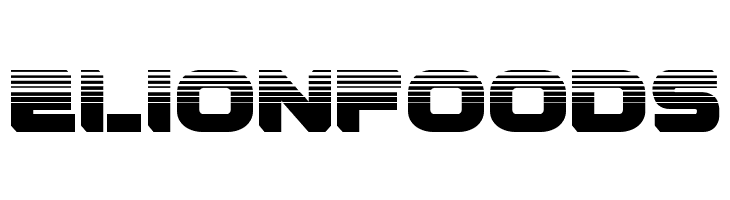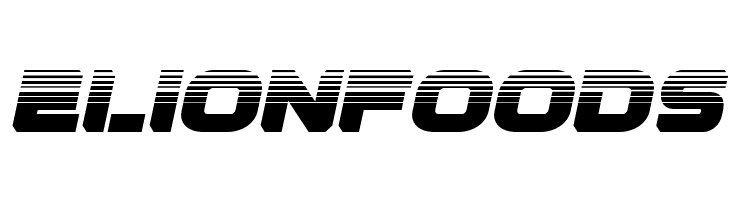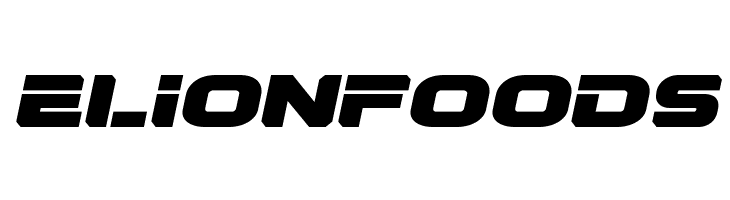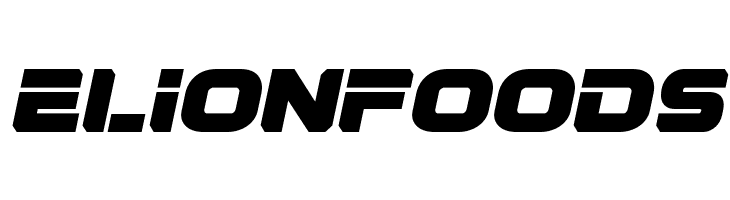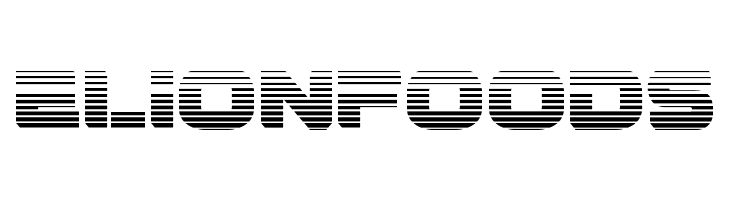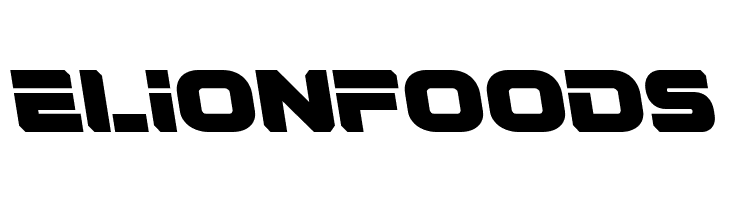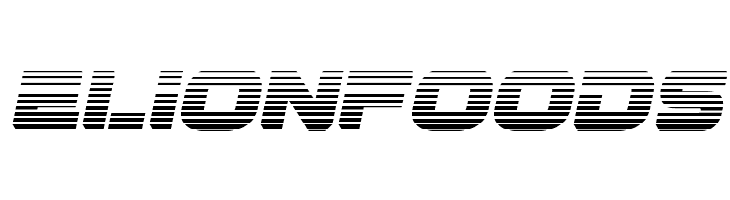
Renegado Regular Font
Renegado Expanded Italic Font
A bold, expanded, and italicized font with a futuristic and dynamic style.
Renegado Laser Font
A bold, futuristic font with geometric and industrial design elements.
Renegado Expanded Font
A bold, futuristic font with wide, angular characters and a geometric style.
Renegado Gradient Italic Font
A bold, italicized font with a gradient effect and modern, dynamic style.
Renegado Italic Font
A bold, italicized font with a futuristic and dynamic design.
Renegado Condensed Font
A bold, futuristic, and condensed font with a geometric design.
Renegado Condensed Italic Font
A bold, condensed, and italicized font with a modern and dynamic style.
Renegado Laser Italic Font
A bold, italicized font with a futuristic, angular design.
Renegado Halftone Font
A bold, futuristic font with a dynamic halftone effect and high contrast.
Renegado 3D Font
A bold, 3D geometric font with a futuristic and industrial style.
Renegado 3D Italic Font
A bold, 3D italic font with a futuristic and dynamic style.
Renegado Super-Italic Font
A bold, italicized font with a modern, dynamic style.
Renegado Leftalic Font
A bold, futuristic font with a leftward slant and sharp, angular characters.